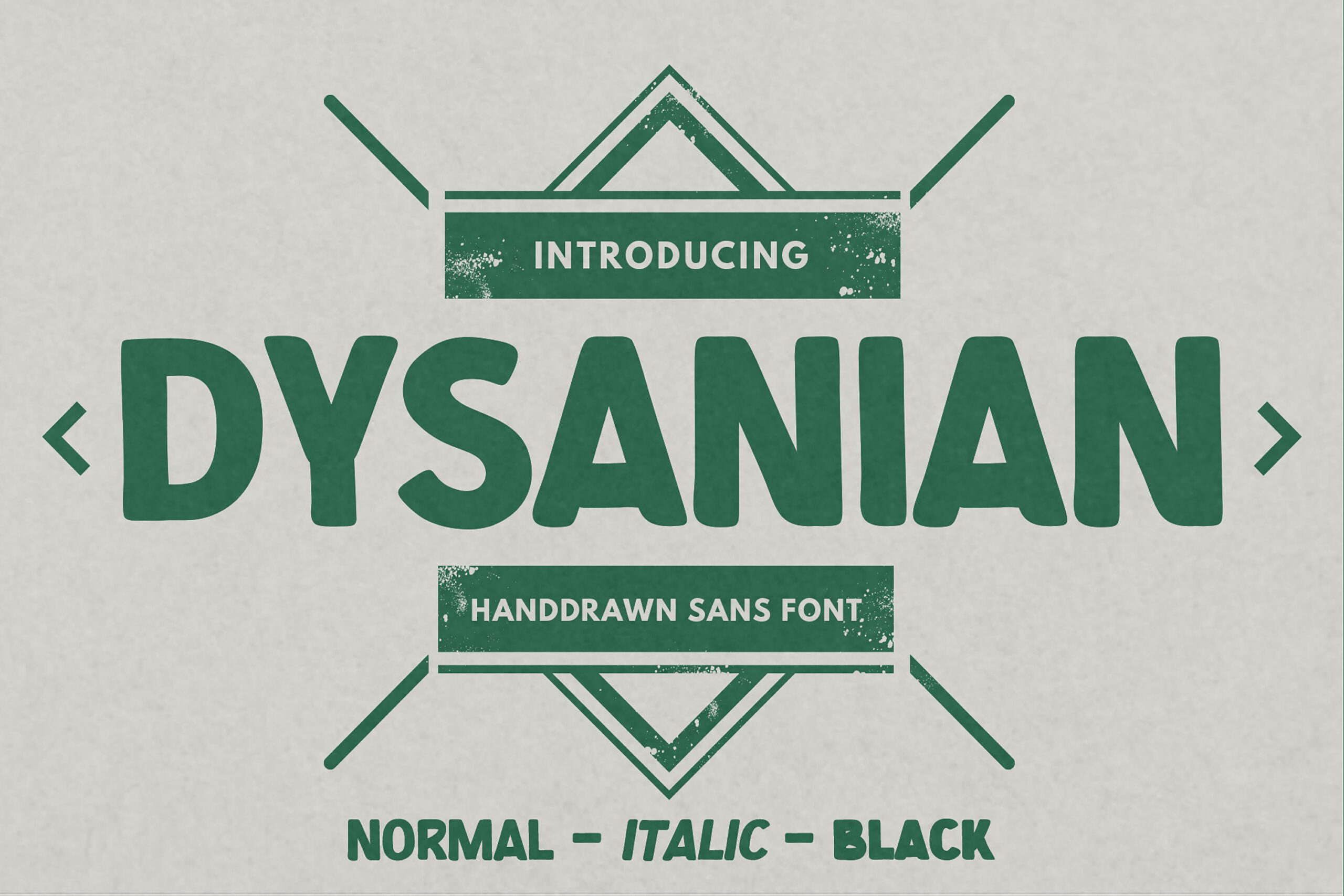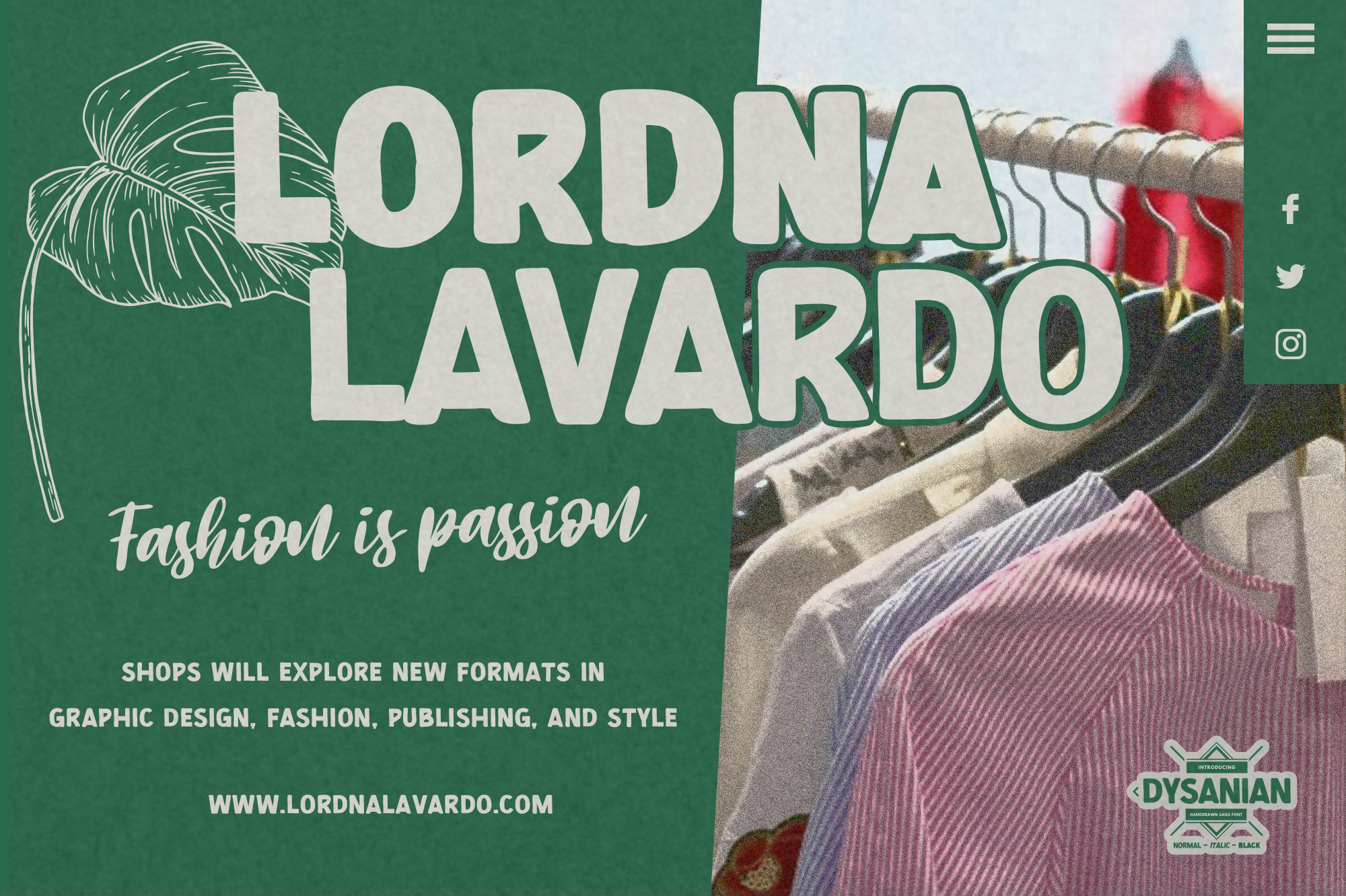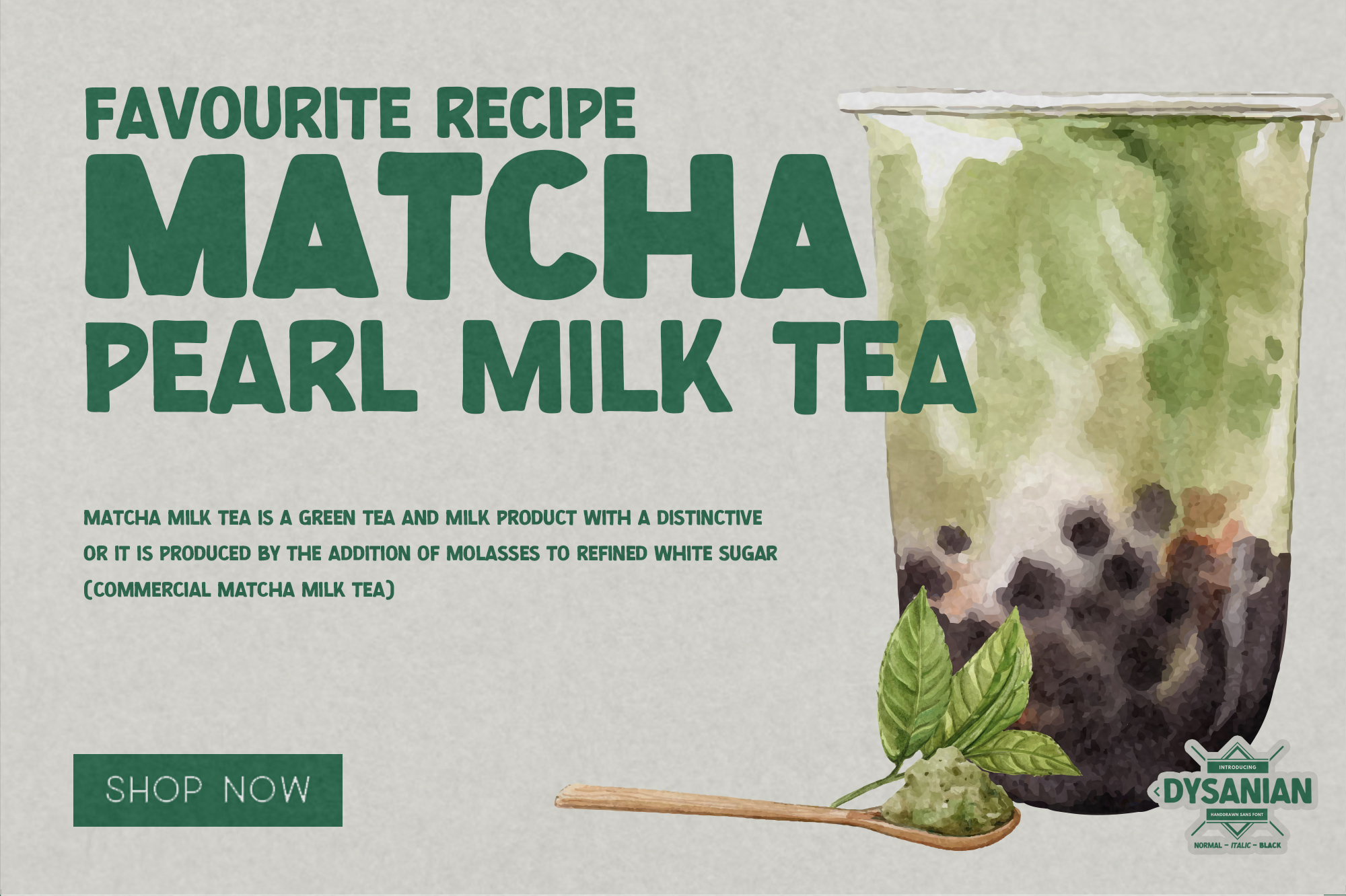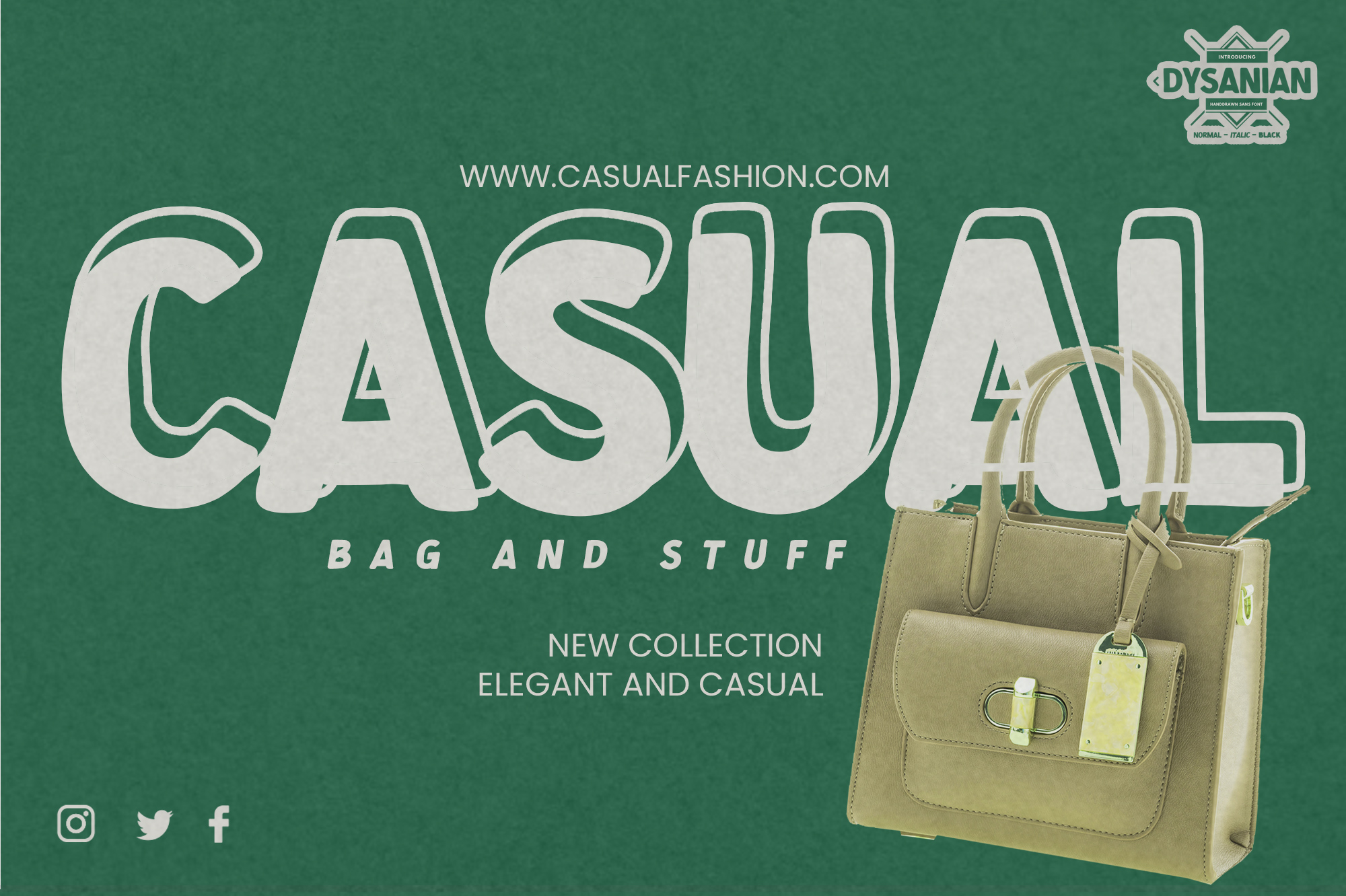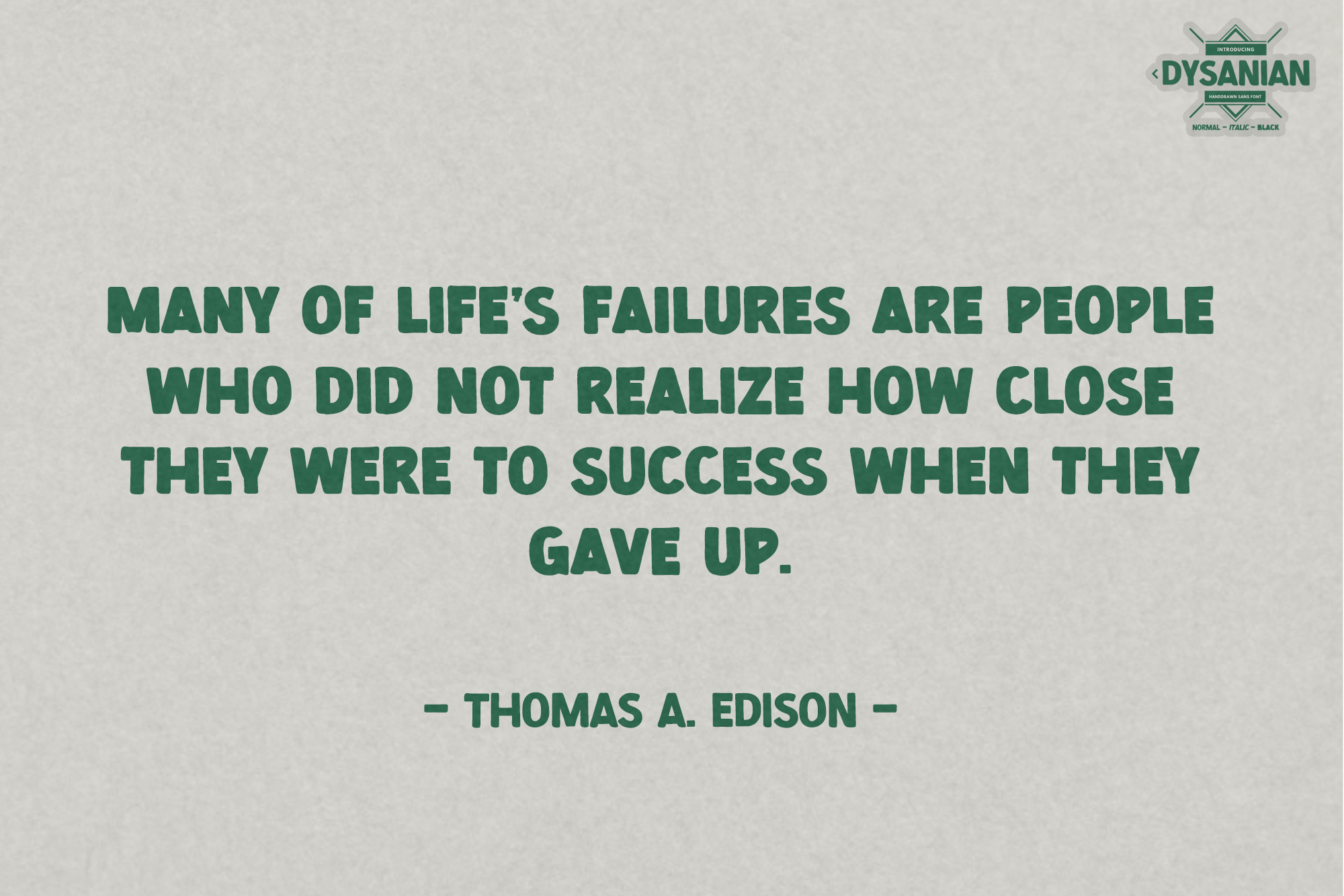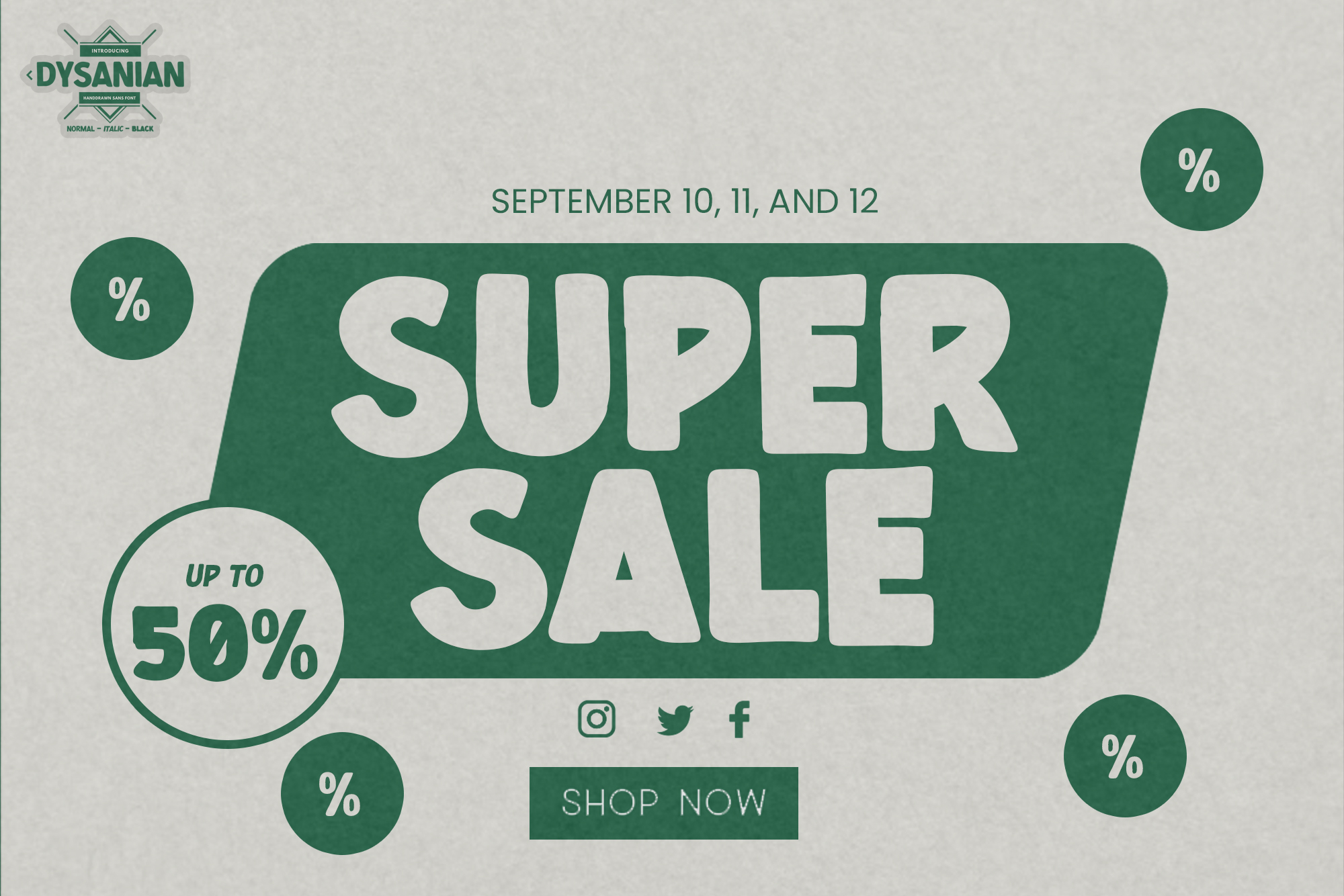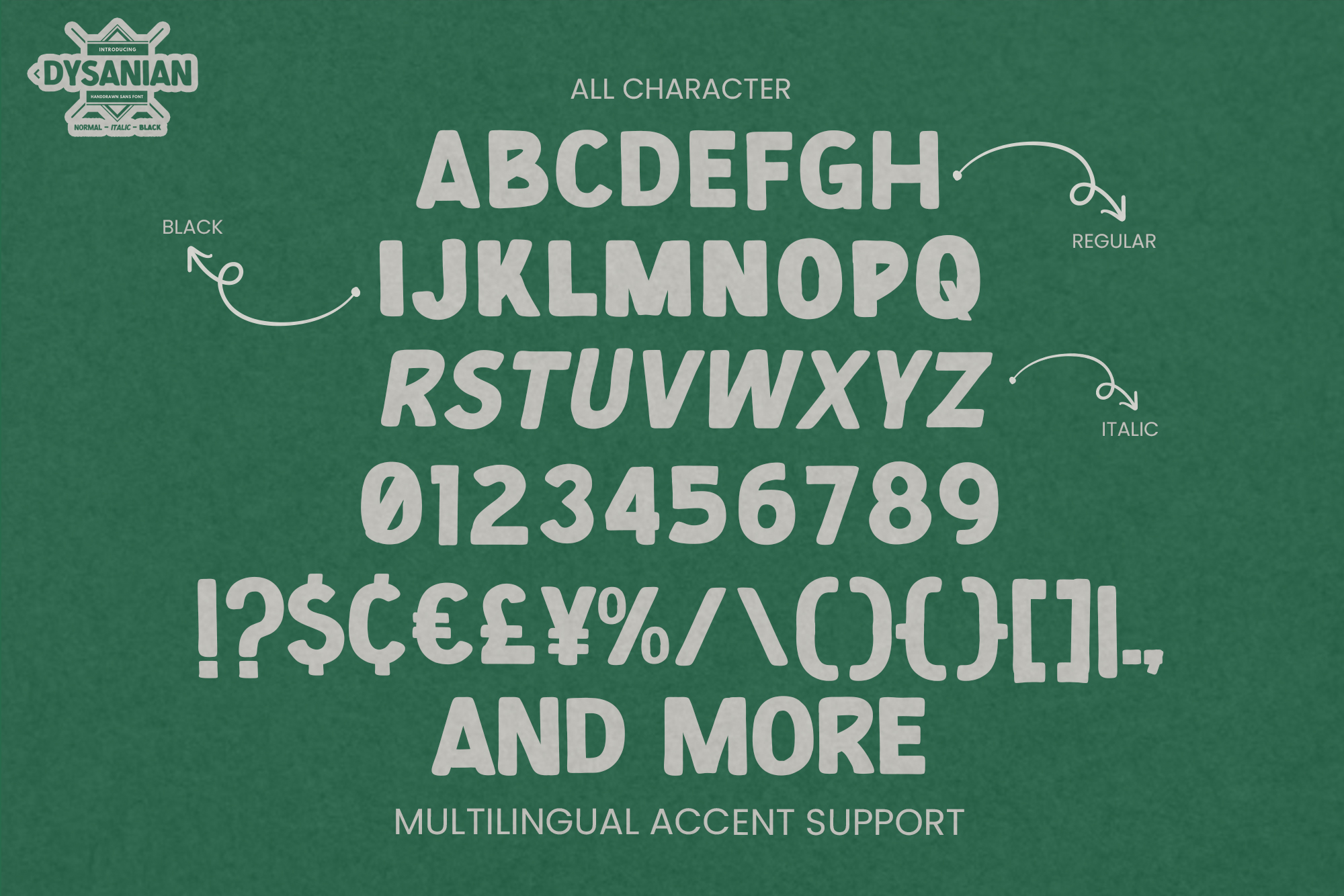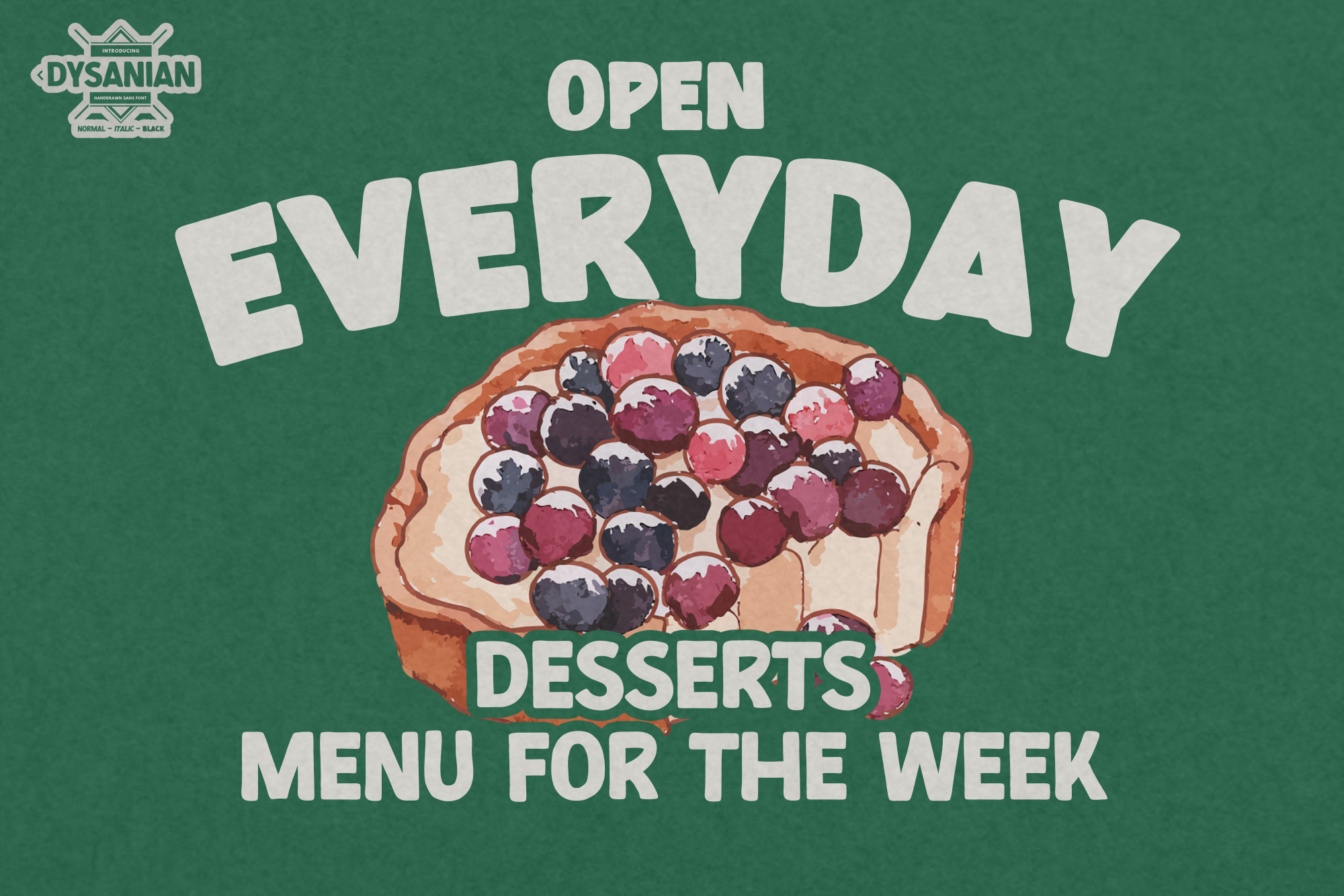
DYSANIAN – Hand Drawn Sans Font ,modern style and creative movement that is written casually and quickly.
The best for logo ,poster, project , designs look modern, unique and authentic sans. It’s perfect for labels, quotes, posters, DIY projects, branding, packaging, greeting cards, websites, photography overlays, signs, scrapbooking, tags and so much more! That is why DYSANIAN has a cool , and allcaps characteristic more natural look. DYSANIAN is has 4 style Normal,Italic,Black and Black Italic styles is perfect for the purposes of designing templates, brochures, videos, advertising branding, logos and more.